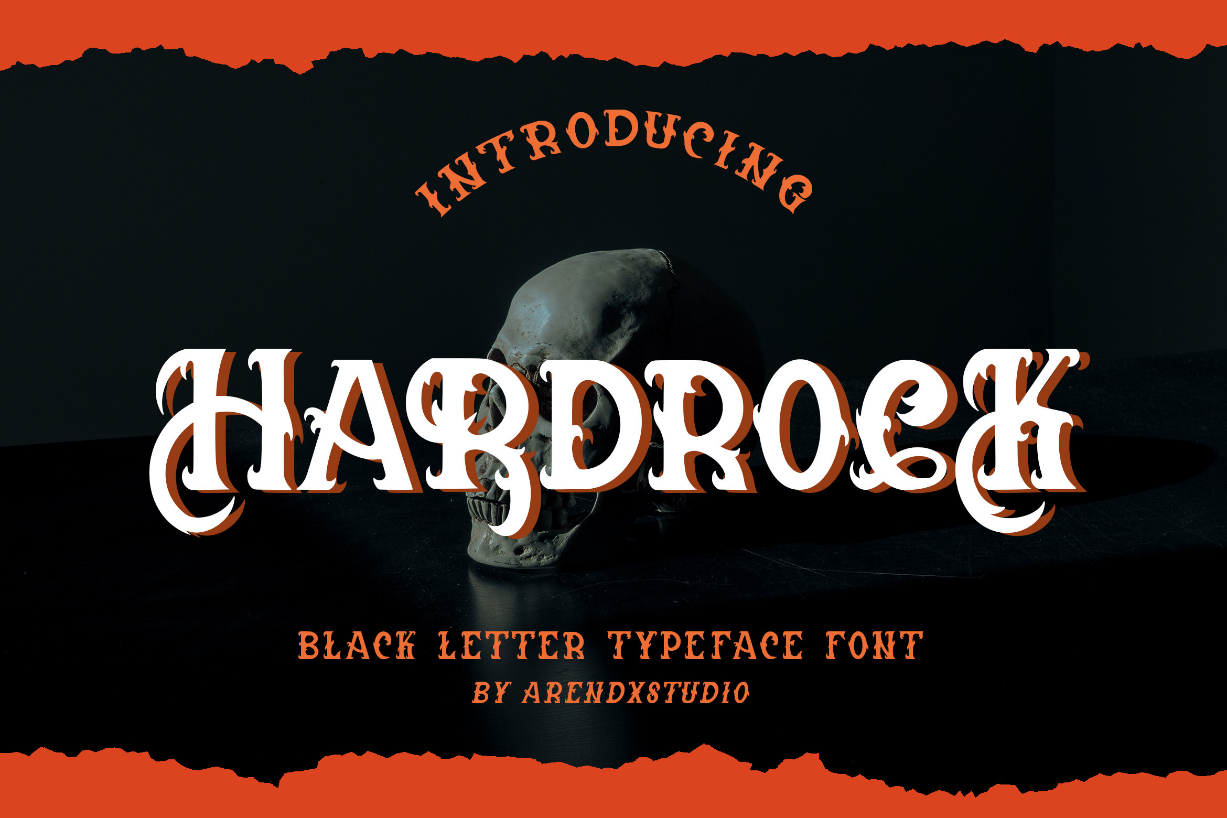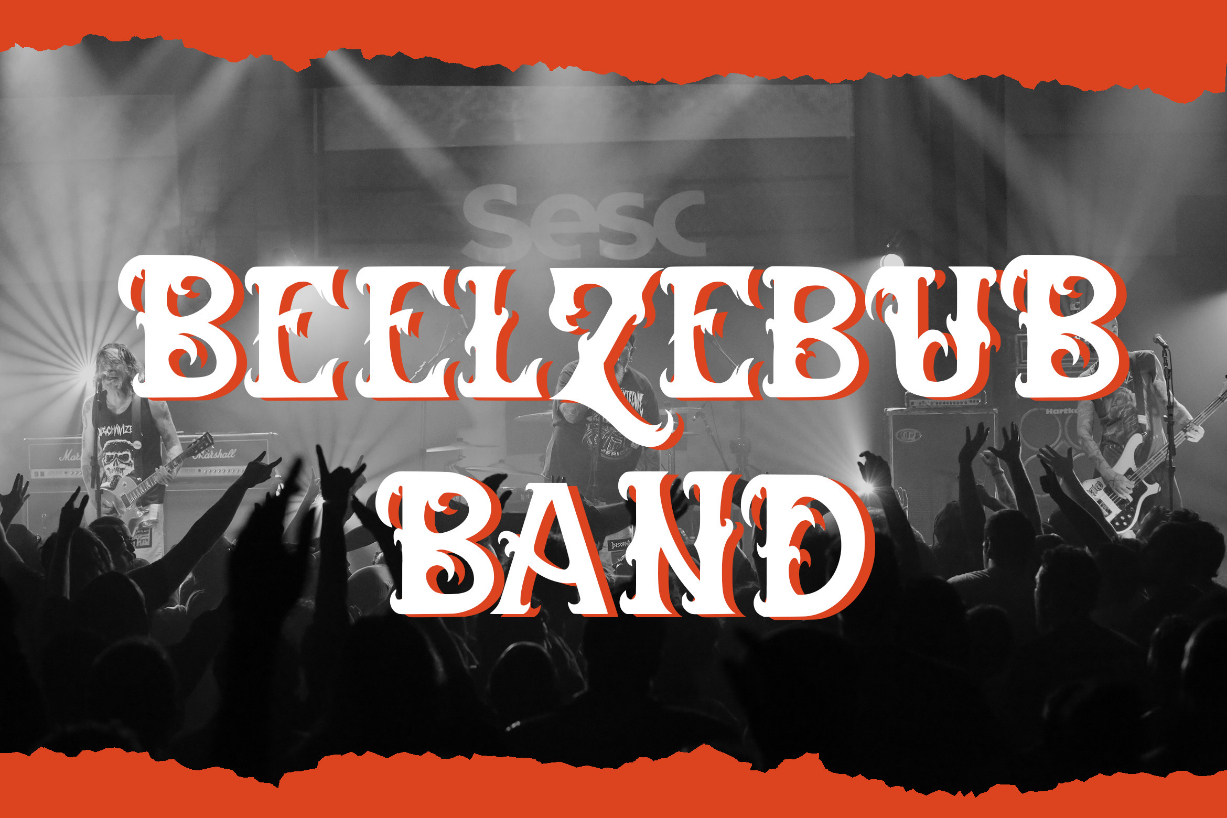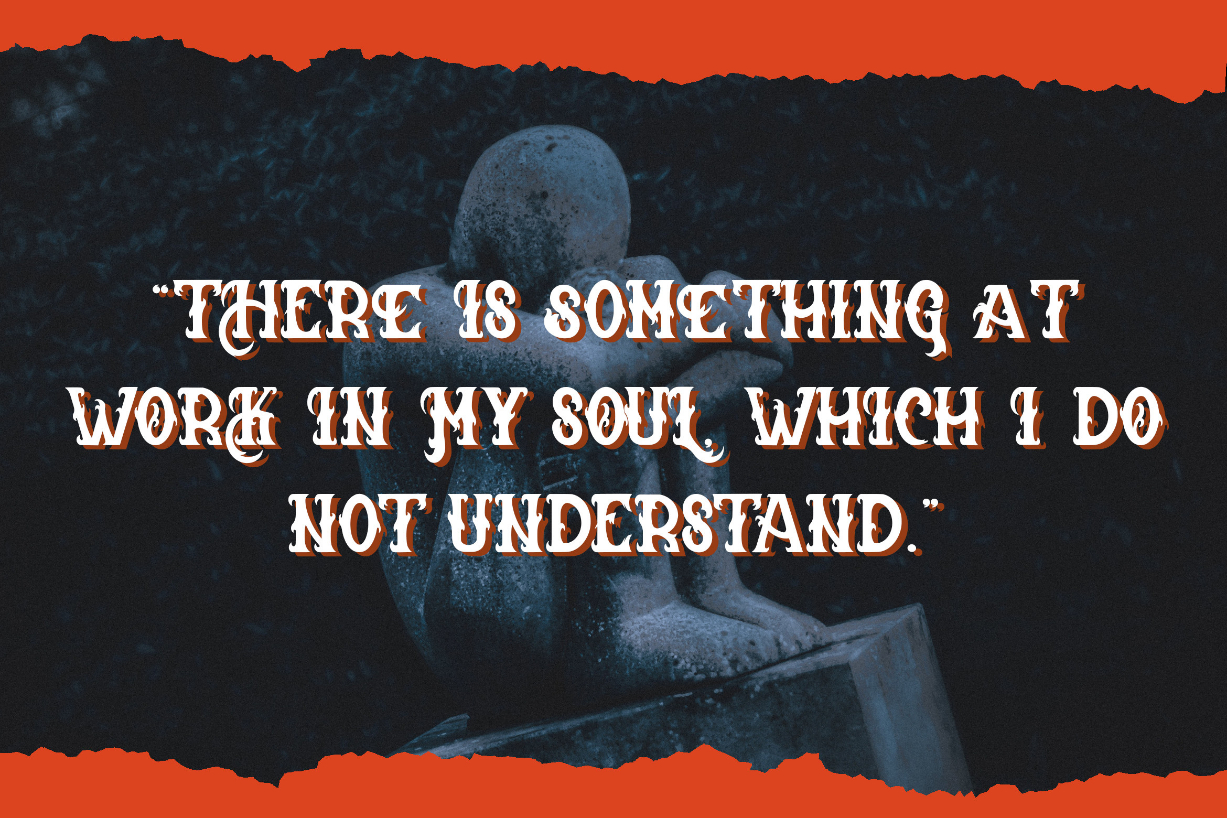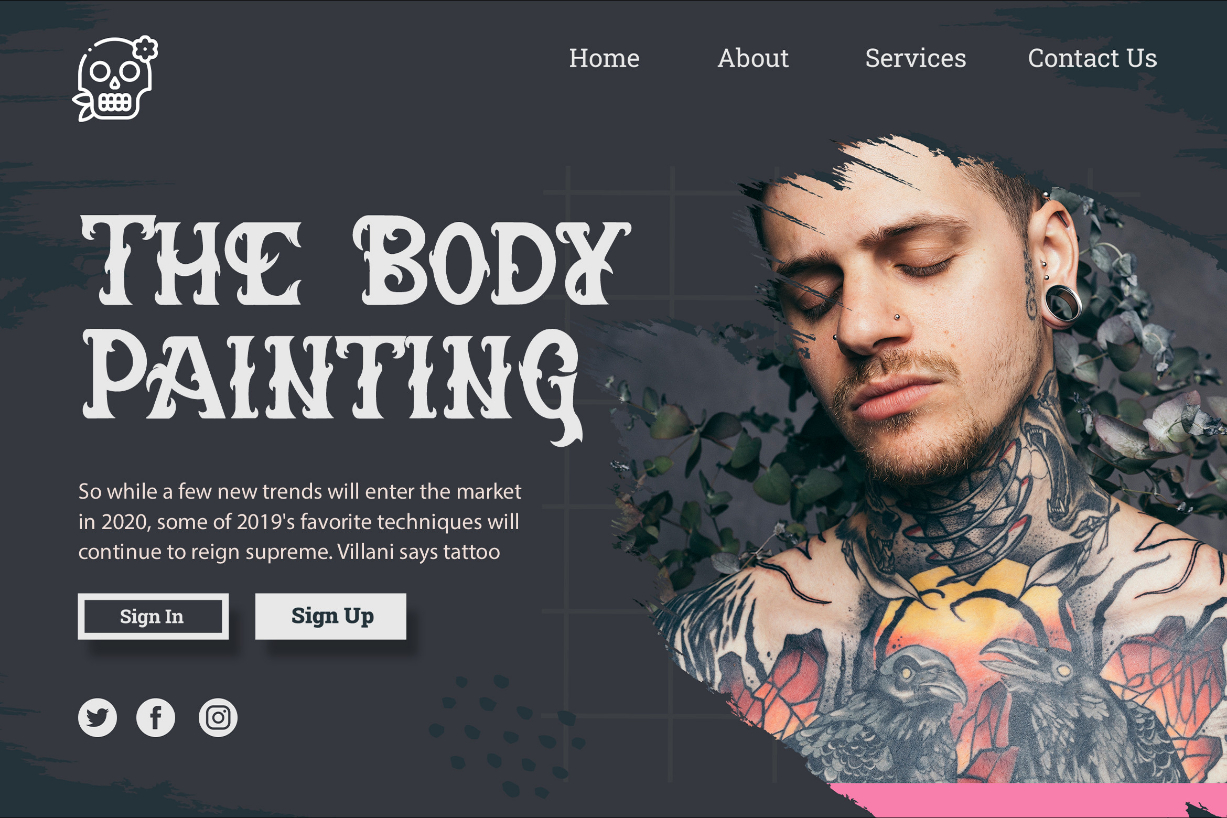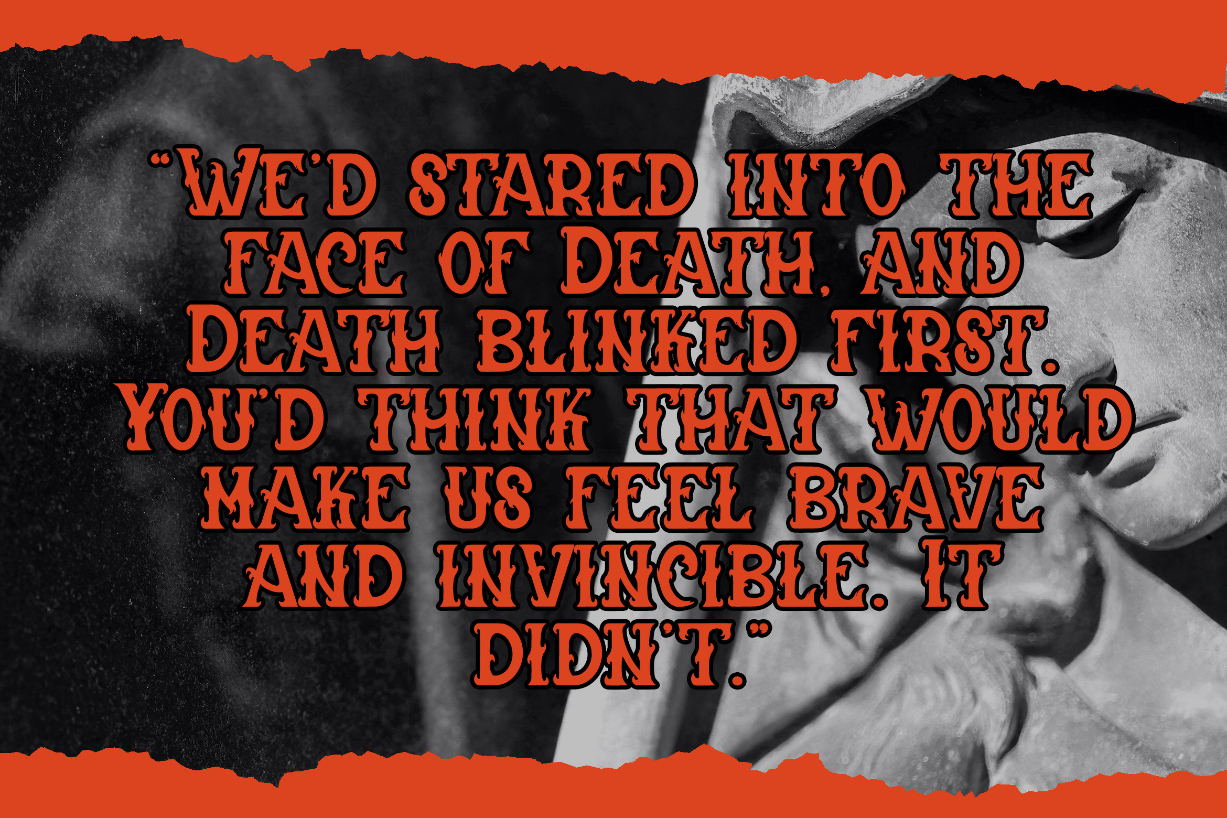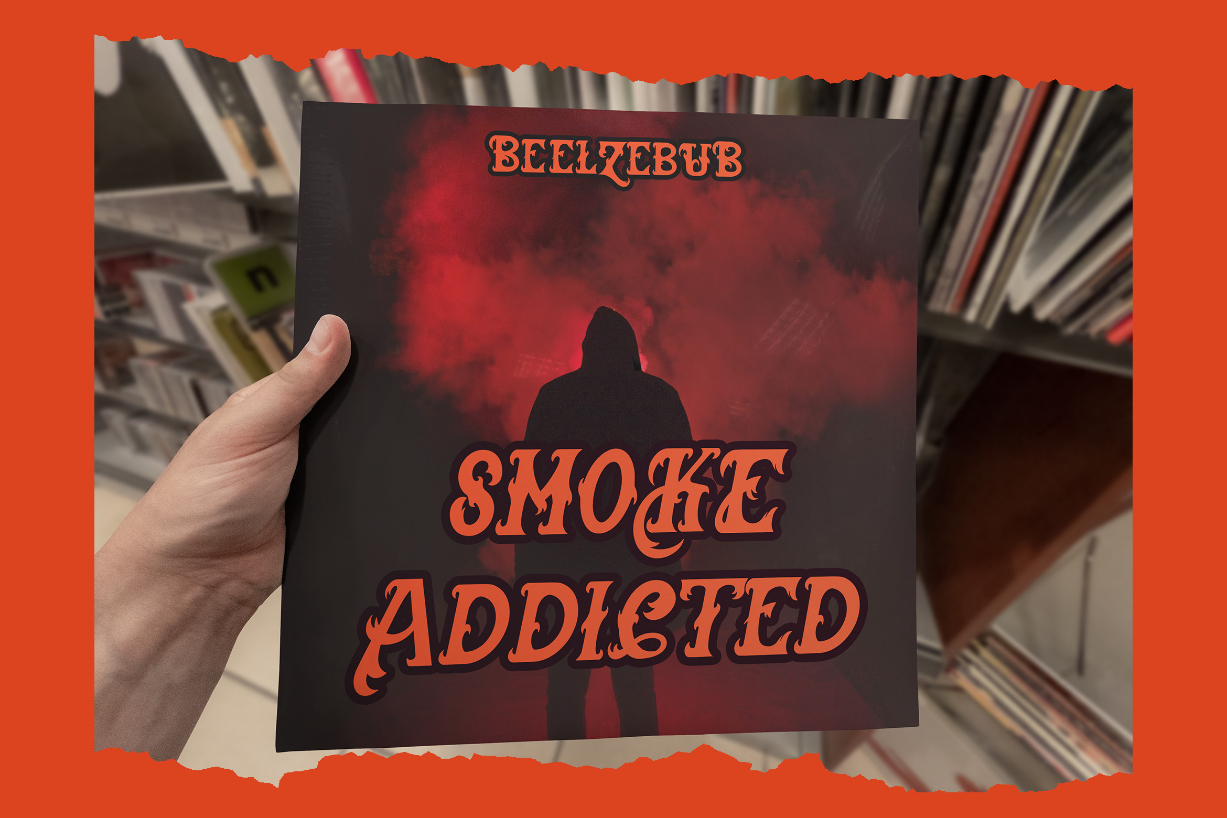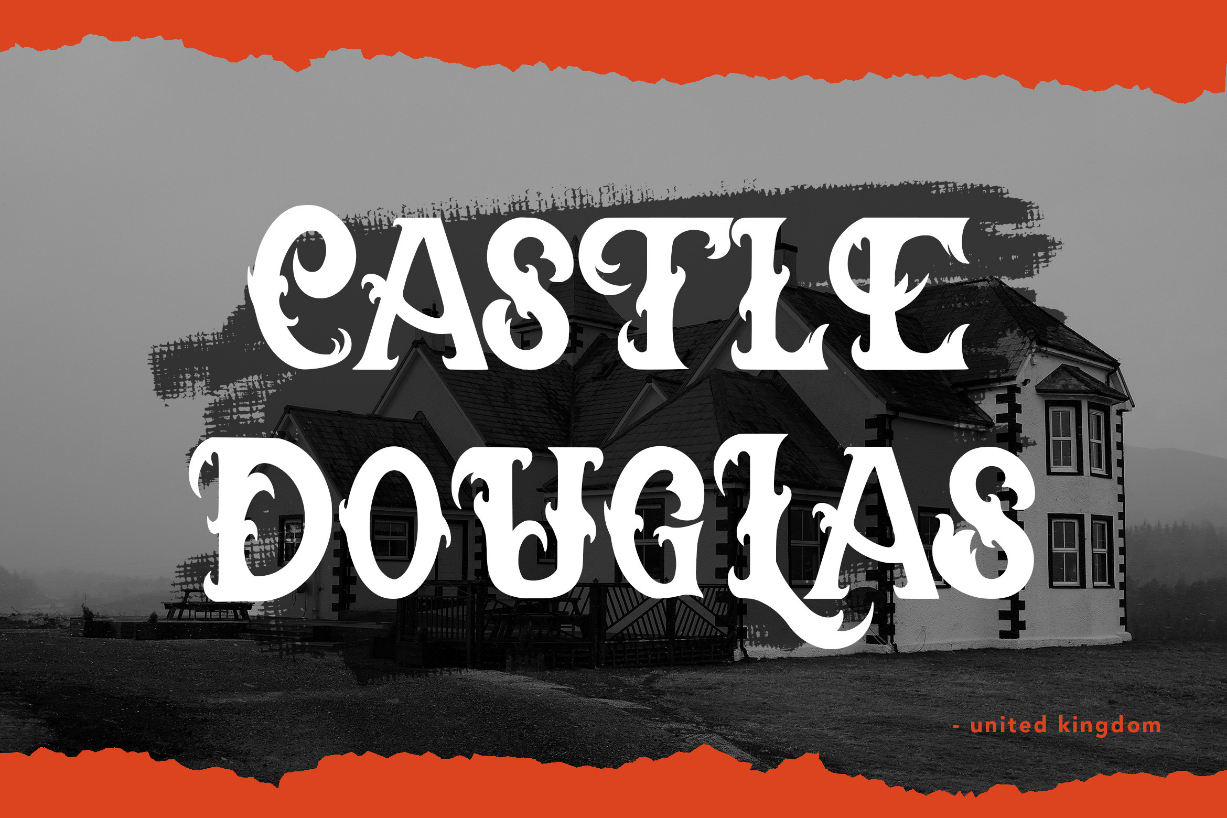
Hardrock Font
About Hardrock Font
Hardrock is a cool, fierce and uniquely shaped blackletter font. It will elevate a wide range of crafting ideas, from cards, to branding, labels and much more.